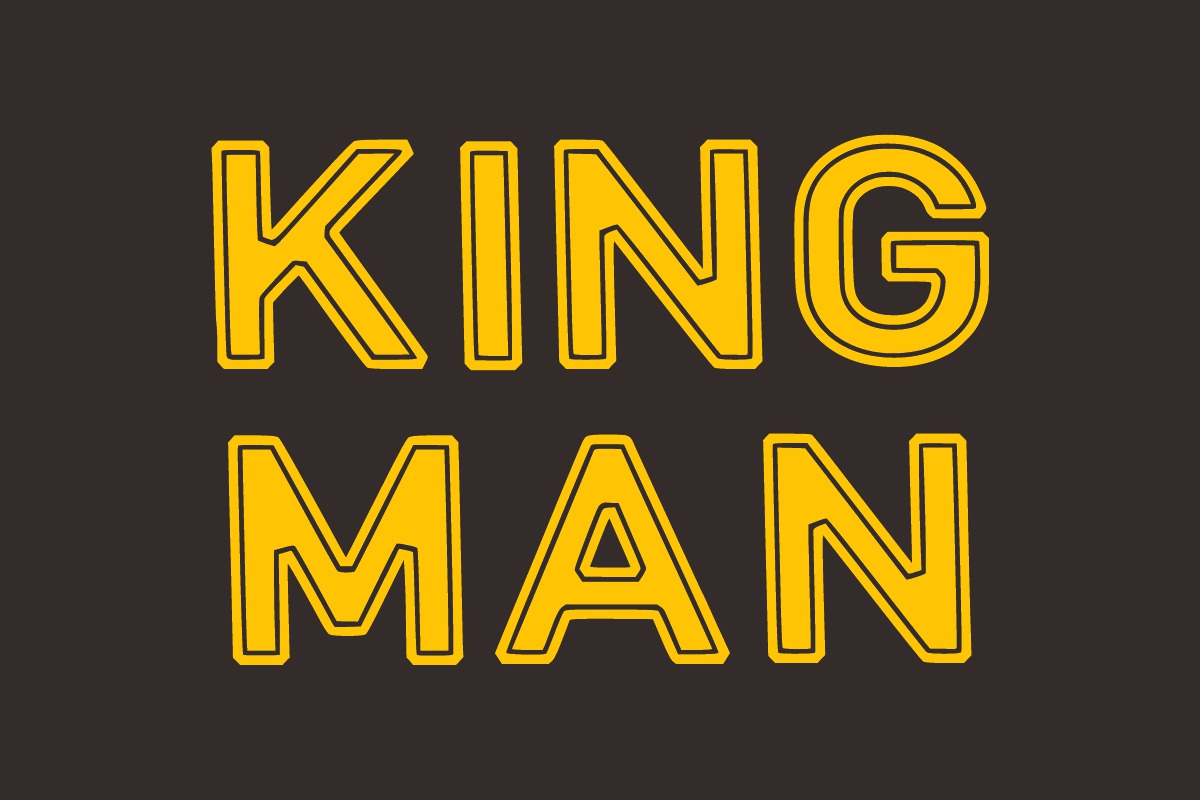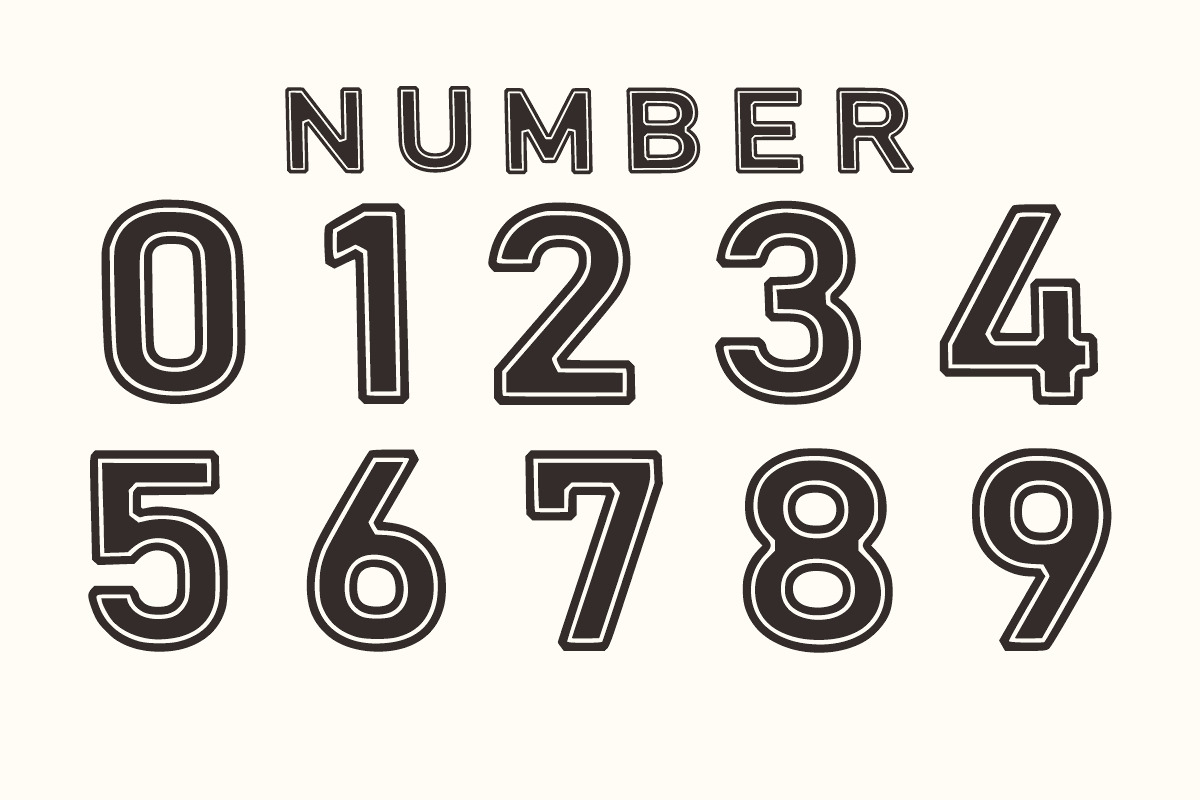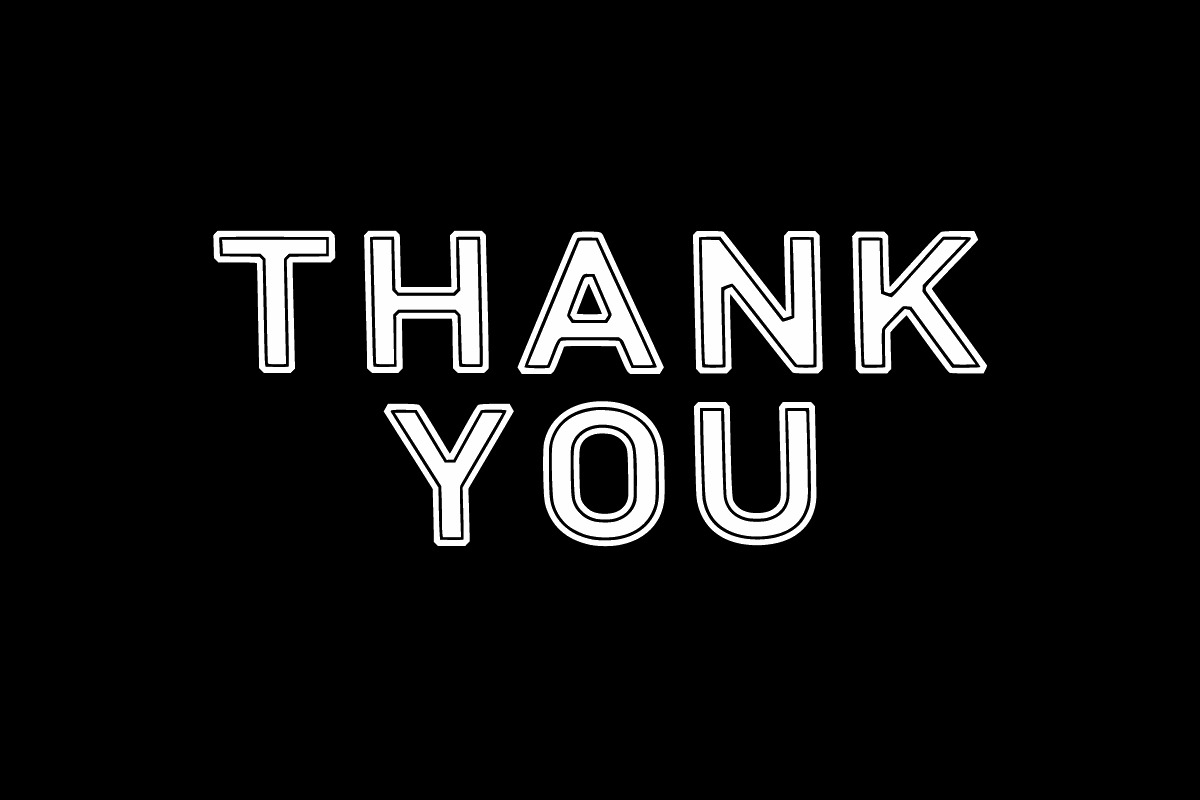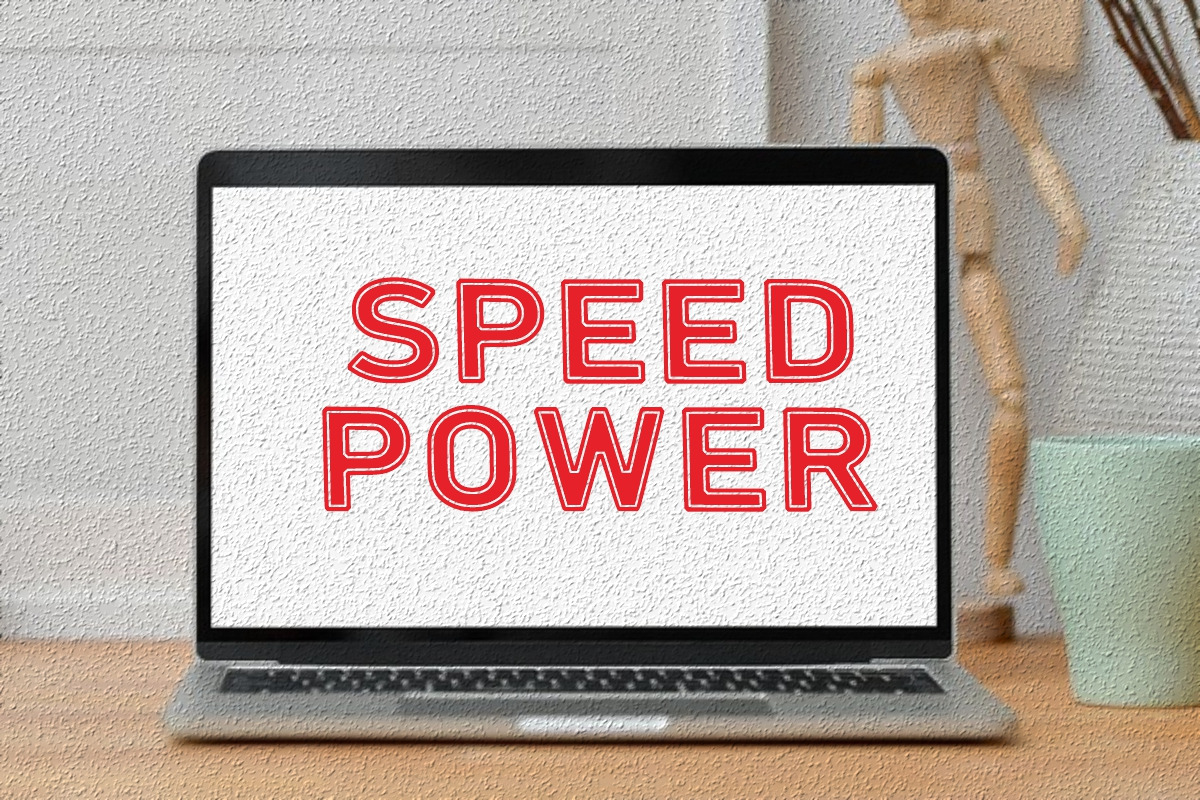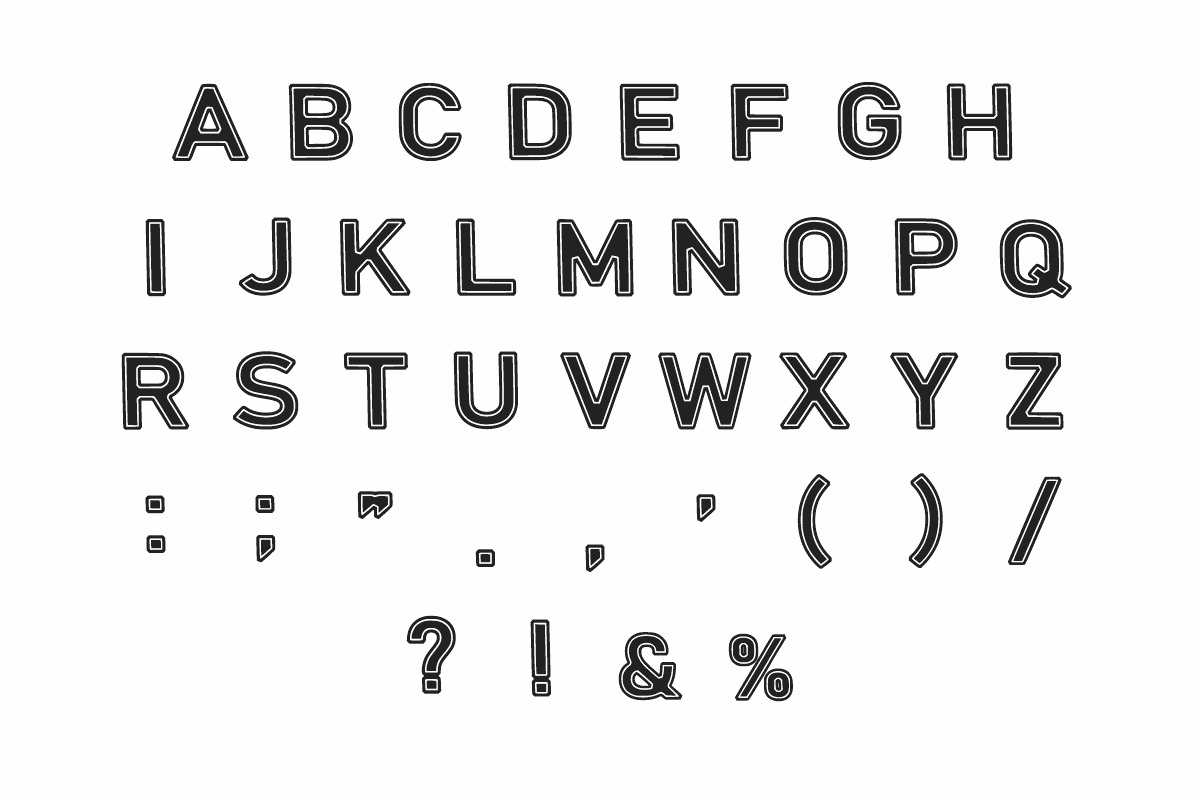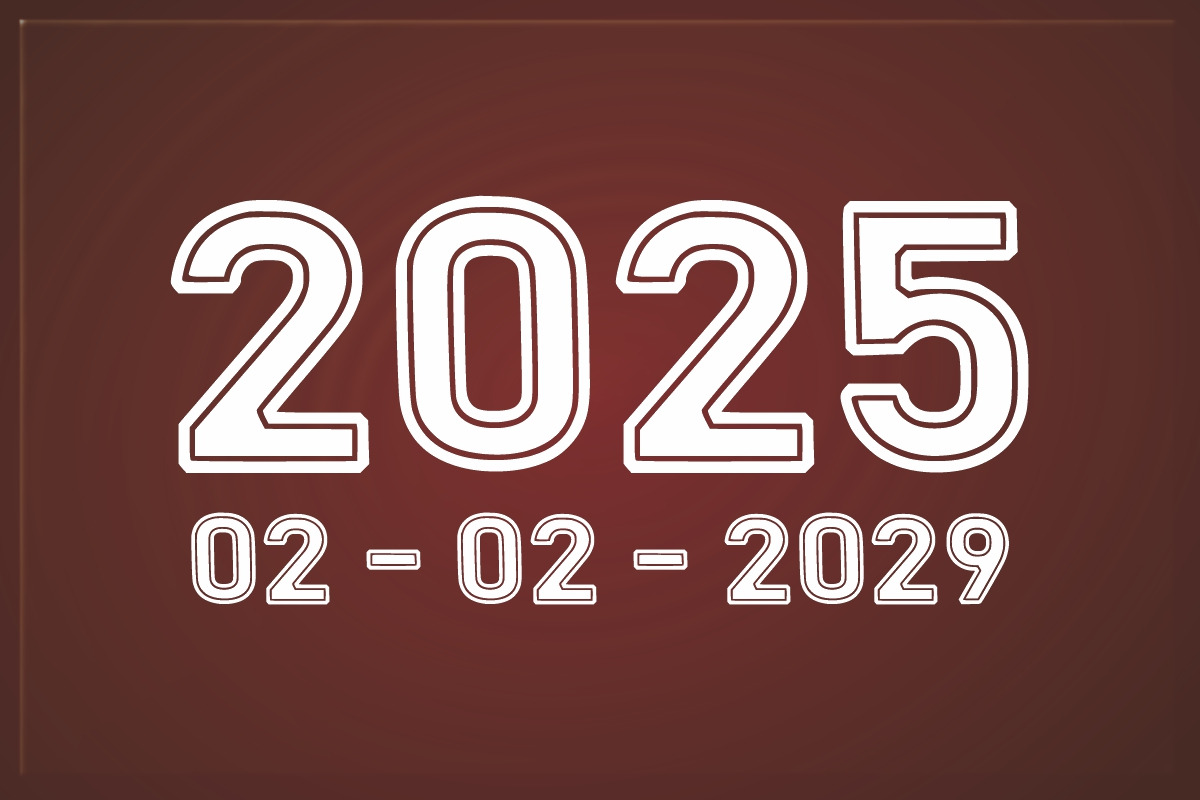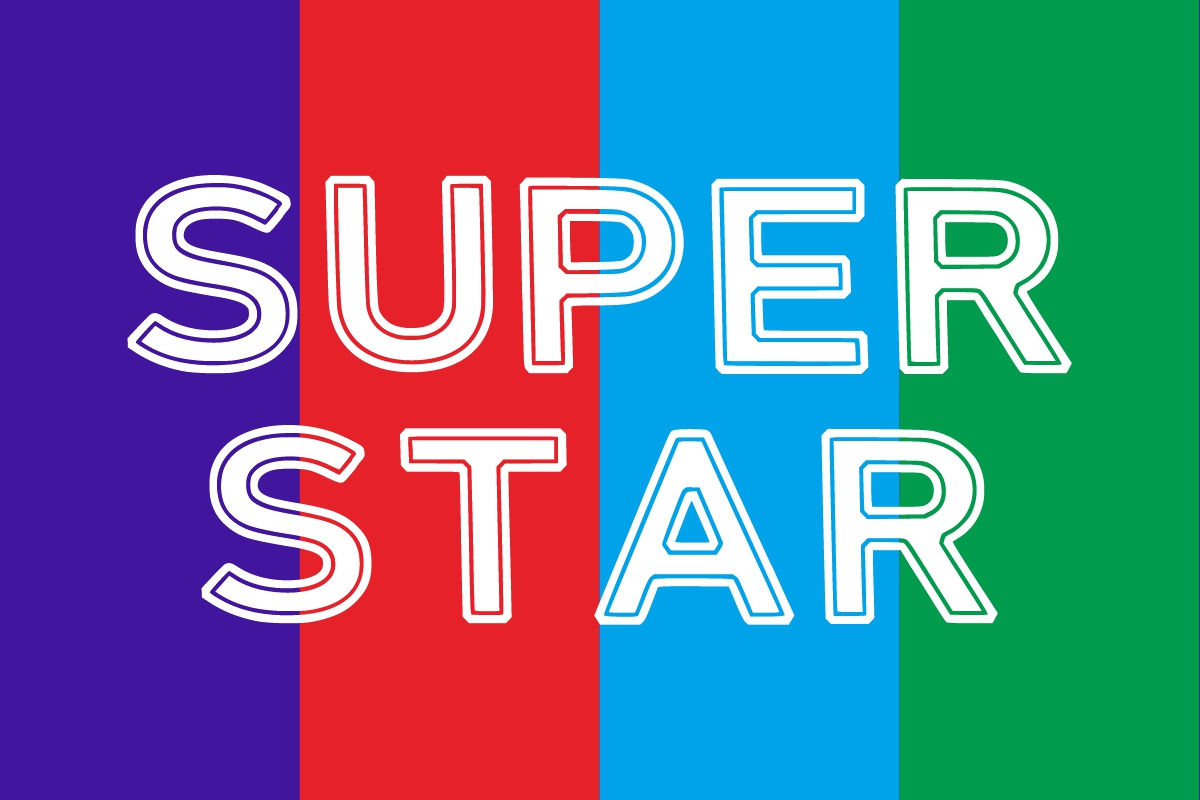
Helioz
Helioz is a childish, bold, easy-to-read display font that conveys impeccable friendliness. Whether you’re using it for crafts, digital design, presentations, or greeting cards, this font has the potential to become your favorite go-to font, no matter the occasion!